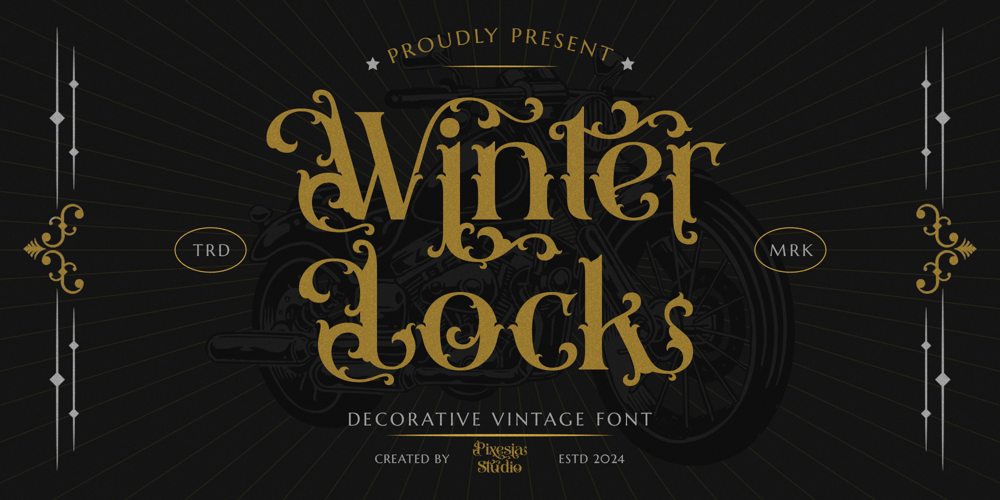
Winterlock Font Family was designed by Abul Almaududi and published by Pixesia Studio. Winterlock contains 1 styles and family package options. Introducing Winterlock – Modern Victorian FontWinterlock is modern victorian font inspired by the elegance and intricacy of the Victorian era. Crafted with meticulous attention to detail, It boasts a playful yet refined aesthetic that is sure to capture attention.Winterlock is perfectly suited for branding, logotypes, tshirt design, headline, quotes, labels, social media posts, advertisements, product packaging, product designs, label, poster, photography, watermark, invitation, t-shirt design, stationery and any projects with old school / retro theme.FEATURES- Stylistic Alternates- Ligatures- Uppercase and Lowercase letters- Numbering and Punctuations- Works on PC or Mac- Simple Installation- PUA Encoded Characters – Easily accessible without additional design software.- Support Adobe Illustrator, Adobe Photoshop, Adobe InDesign, also works on Microsoft Word- Multilingual Support for 89 languages including Afrikaans, Albanian, Basque, Catalan, Danish, Dutch, English, Estonian, Faroese, Filipino, Finnish, French, Galician, German, Icelandic, Indonesian, Irish, Italian, Malay, Norwegian Bokmål, Portuguese, Spanish, Swahili, Swedish, Zulu.Hope you Like it.Thanks.